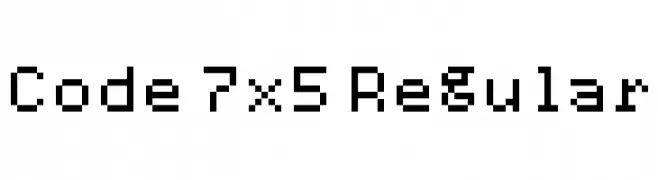
A modern, bold monospaced font with geometric precision.
A modern, monospaced font with uniform character width and clear readability.
A bold, monospaced font perfect for coding and technical documentation.
A modern, monospaced font with clean lines and even spacing, perfect for coding.
A bold, monospaced typeface with a modern, geometric design.
A modern, monospaced font with a clean, geometric design.